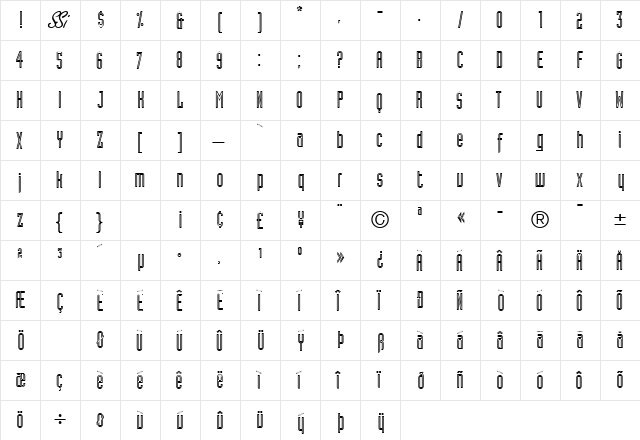
AssemblyOutlineAlternateSSK Regular
Design Context for AssemblyOutlineAlternateSSK Typeface
AssemblyOutlineAlternateSSK is built around its visual character rather than neutral utility — its distinctive forms are designed to make an impression at display sizes.
Font Pairing: Pair with a clean neutral sans-serif for body copy to let AssemblyOutlineAlternateSSK's character lead without overwhelming the composition.
Pro Tip: Treat AssemblyOutlineAlternateSSK as the centrepiece of your typographic hierarchy. One strong heading set in a decorative face can carry an entire layout.